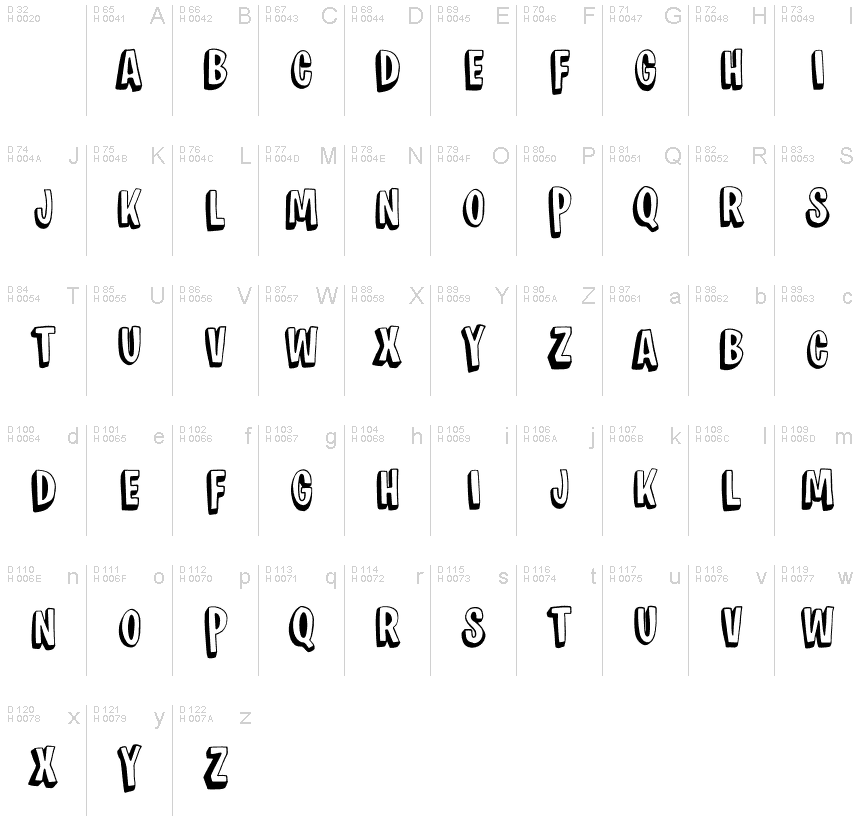
JUSTICE FEST Bold
Justice Fest Bold is a lovely cartoon typeface designed by The Docallisme. The font is free for personal use, non-profit, and charity use.